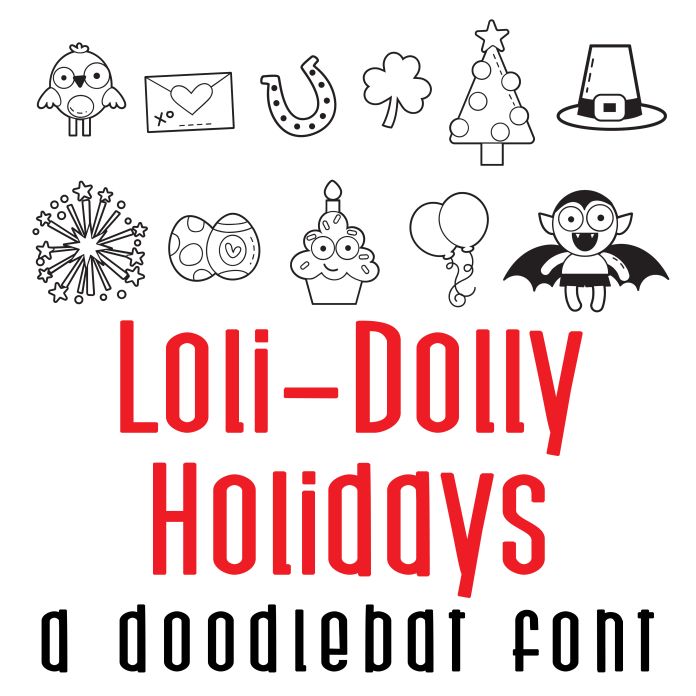
This adorable doodlebat font features 26 stitched cute images of holiday imagery! Perfect for cards, crafts, gifts, decor, planner stickers, scrap book pages, classrooms and more!